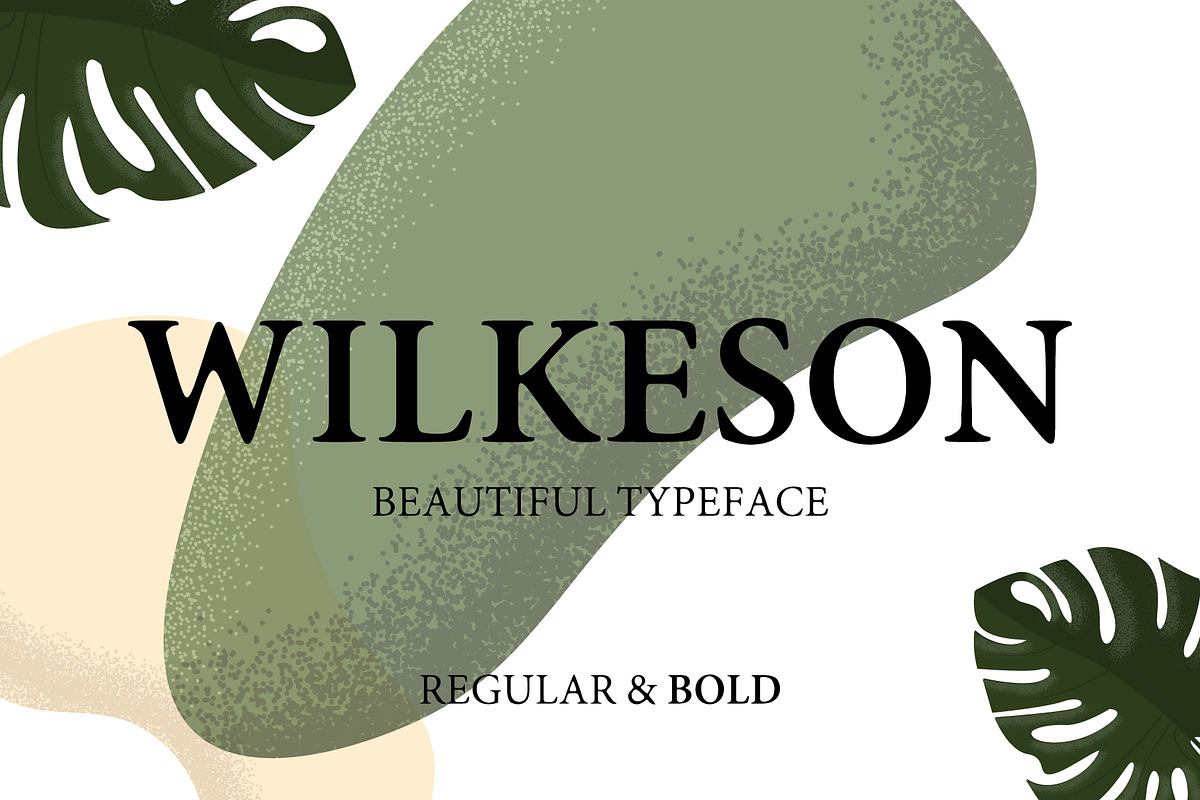
Wilkeson Modern Serif Typeface Free Download is a sleek and refined serif font that blends timeless elegance with a modern edge. Featuring high contrast strokes, sharp serifs, and a clean structure, Wilkeson is perfect for editorial layouts, fashion branding, upscale packaging, and stylish web design.
Its contemporary aesthetic adds sophistication to both display and paragraph text. The font includes uppercase and lowercase characters, punctuation, multilingual support, and is fully compatible with both Mac and Windows platforms—making it a reliable choice for designers across all mediums.